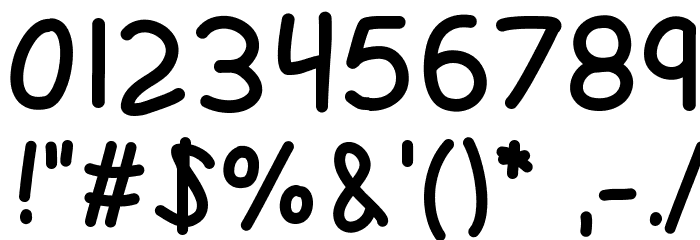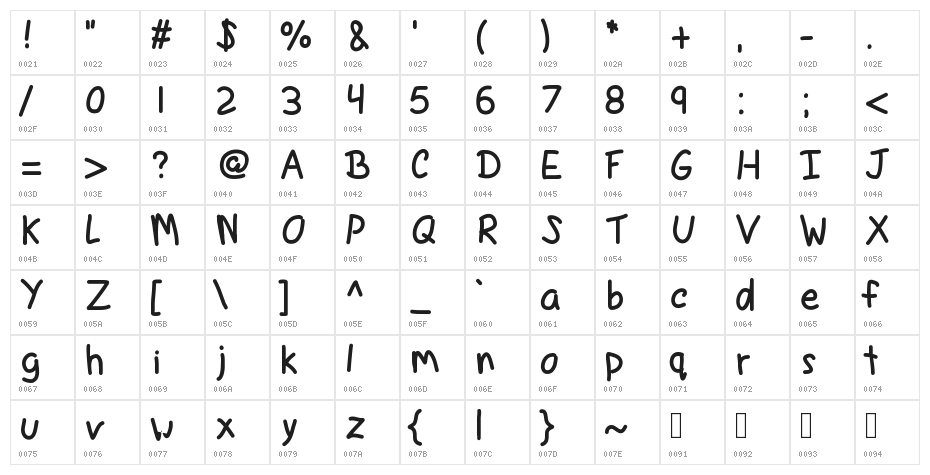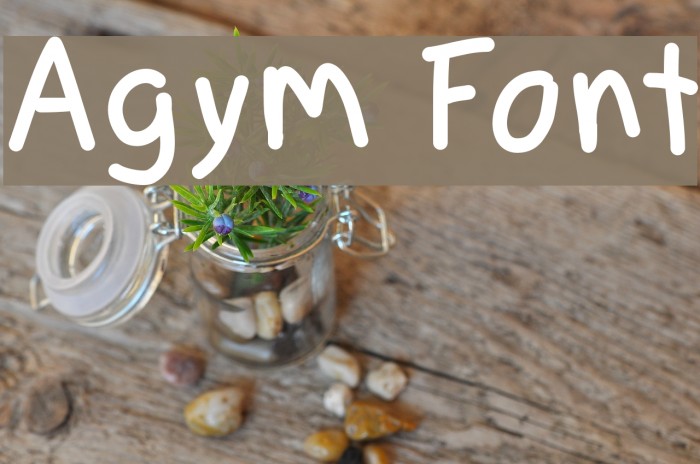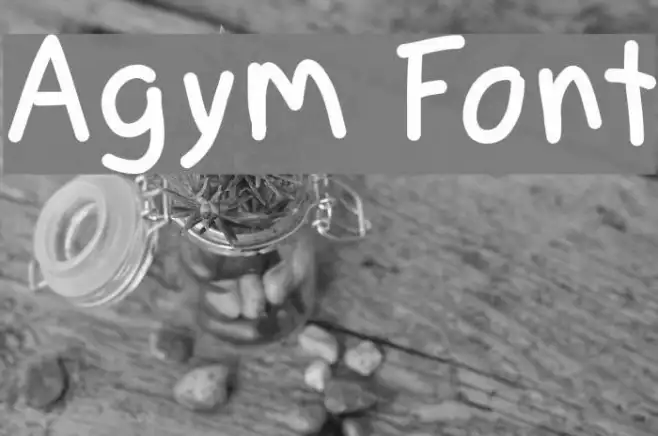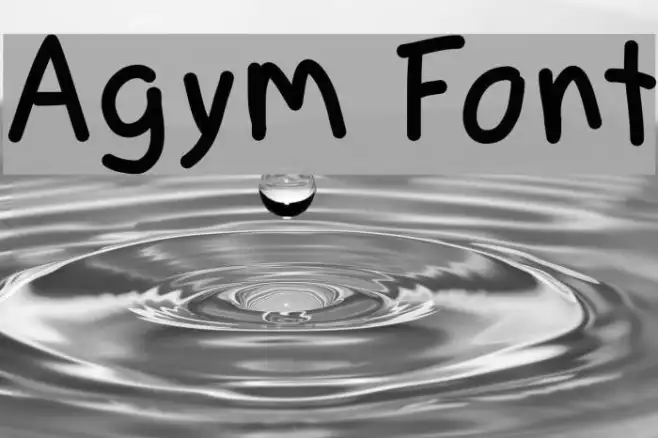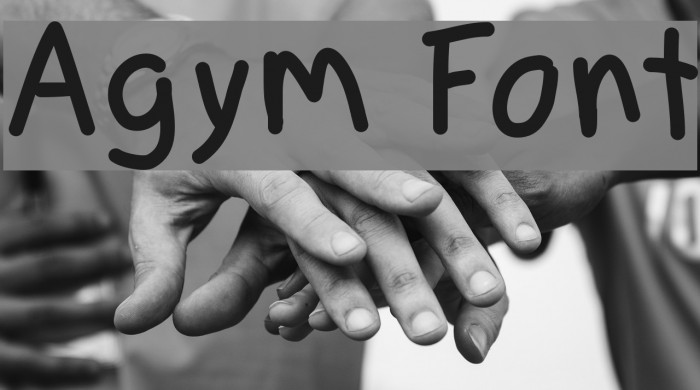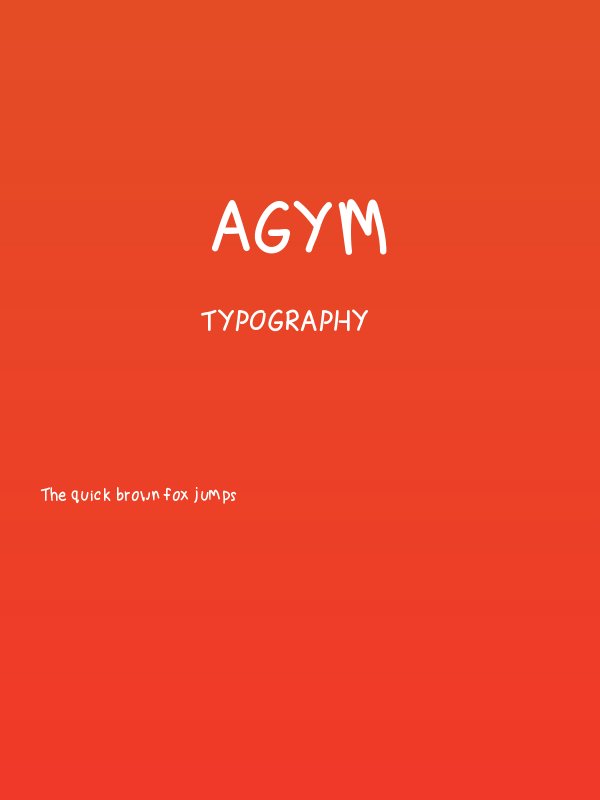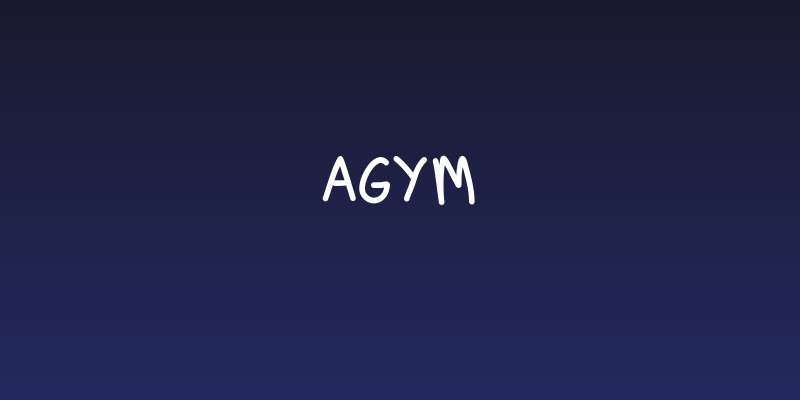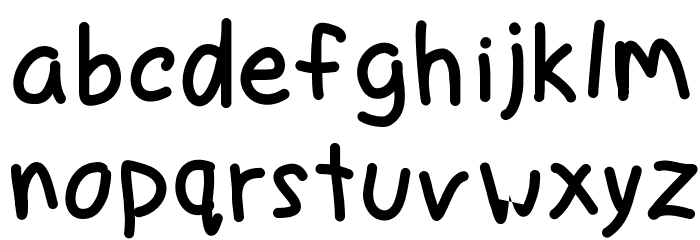
Agym Font
Agym Description
This playful and informal font features a handwritten style with rounded edges and a casual appearance. The letters are slightly uneven, giving it a charming, organic feel. The uppercase and lowercase characters maintain a consistent style, with a friendly and approachable look. The numerals and special characters are designed to match the overall aesthetic, making it suitable for projects that require a personal touch. The font's simplicity and readability make it versatile for various design needs.
| Proposed Projects | Ideal for children's books, greeting cards, casual branding, and social media graphics. |